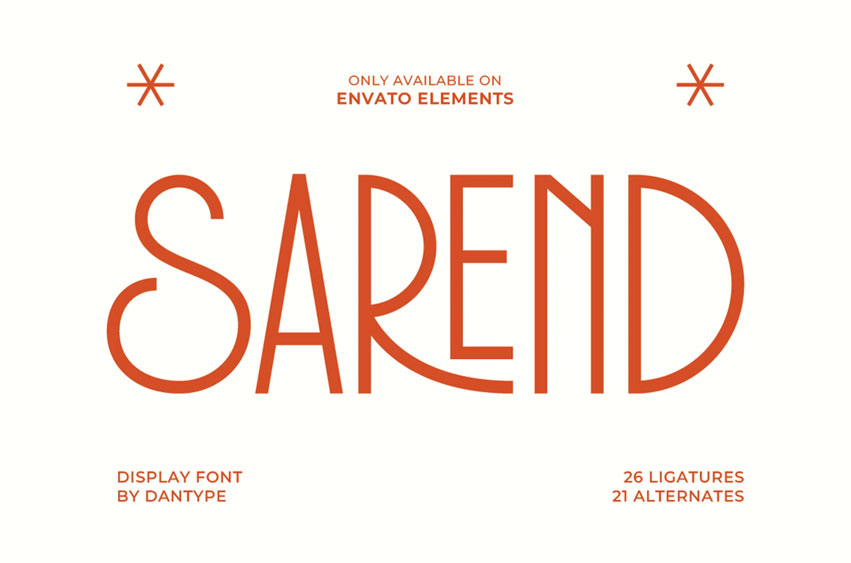
Sarend Font is a minimal modern display font that blends geometric structure with refined aesthetics. Its sleek proportions, balanced curves, and extended verticals evoke timeless modernism — perfect for logos, branding, posters, and editorial layouts. With 26 ligatures and 21 stylistic alternates, Sarend empowers designers to craft unique and sophisticated typography compositions effortlessly.